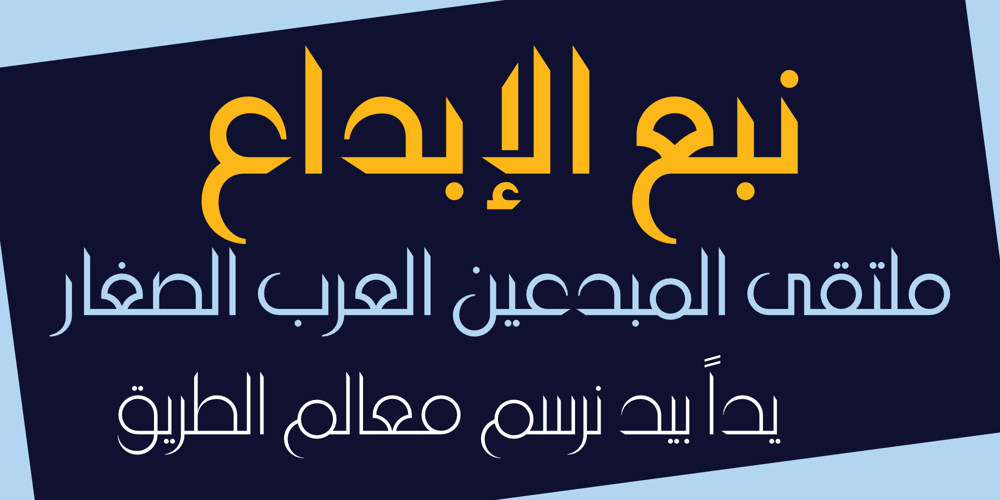
HS Future Sans Font Family was designed by Abdulsamiea Rajab Salem, Hasan Abu Afash and published by Hiba Studio. HS Future Sans contains 3 styles and family package options. HS Future Sans is the sans serif version of HS Future. It has three weights and was converted to OpenType to support Arabic, Persian and Urdu to be compatible with the various operation systems and modern software. The smoothing of this font and the combination of straight and curved parts without the serif gave the user additional option beside HS Future family. It made it a beautiful typeface appropriate to the titles, and able to meet the desire of the user in the design of ads and modern designs of various types of audio and visual.